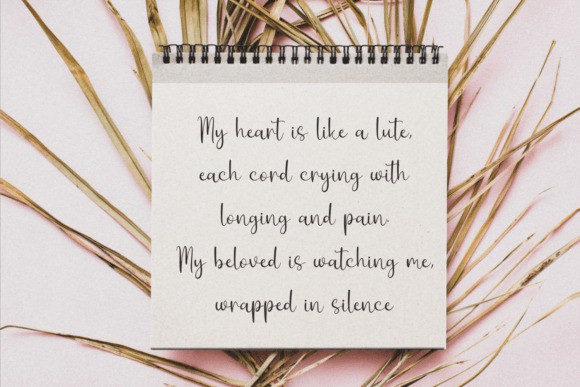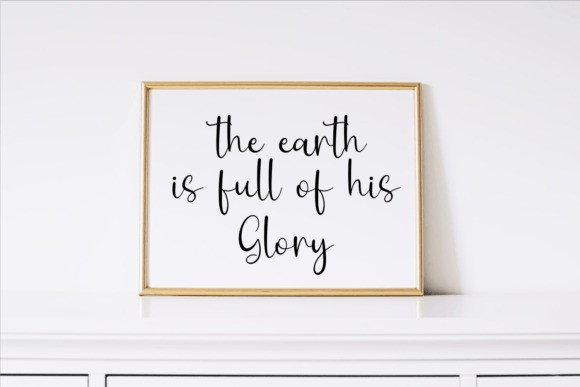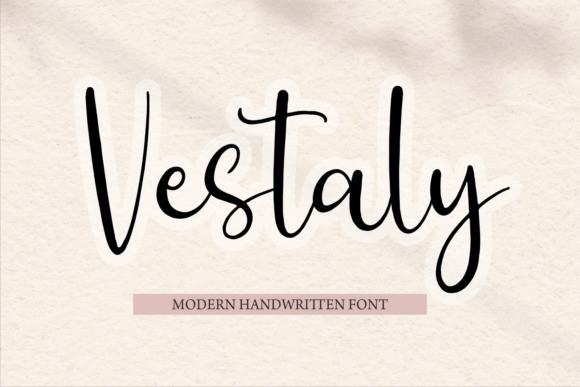
Vestaly Font
Vestaly Script Font is a flowing, smooth, handwritten font, described by an elegant touch, perfect for your favorite projects. Fall in love with its incredibly distinct and timeless style and use it to create spectacular designs!